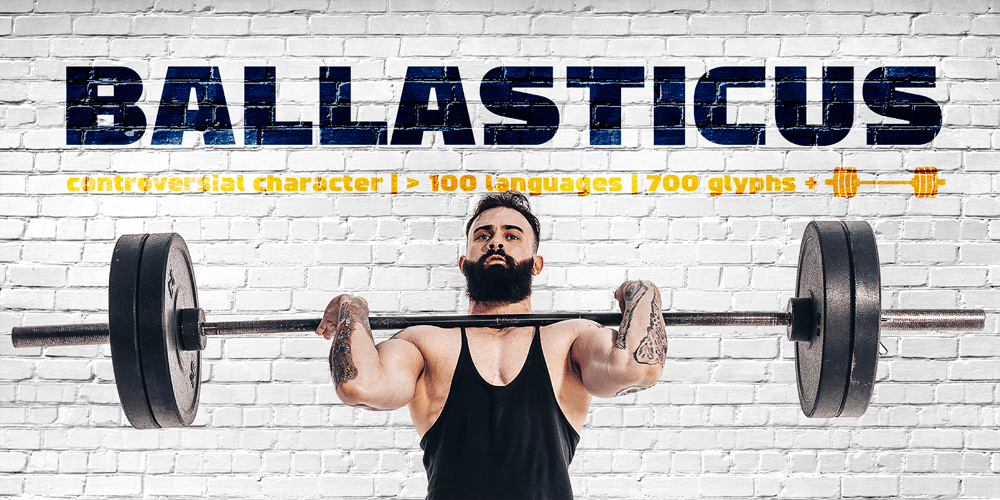
Ballasticus Font Family was designed by Sergey Shapovalov and published by Shapovalov Fonts. Ballasticus contains 1 styles and family package options. Ballasticus is a controversial bold grotesque for logos, big headlines, posters, signage, gyms, and bodybuilders. The outer contour of the beech is rounded, while the inner space is square. The font contains two barbell icons that can be immediately inserted into your company logo. The character of Ballasticus is honest, stable, open, grounded like a weight. Ballasticus contains extended Latin, Cyrillic, ligatures, barbell and peace sign, as well as alternatives for some letters, the total number of glyphs is more than 700. It contains OpenType functions: liga, numr, dnom, calt, ss01. The font is also case sensitive, has fractions, currency signs, and arrows.